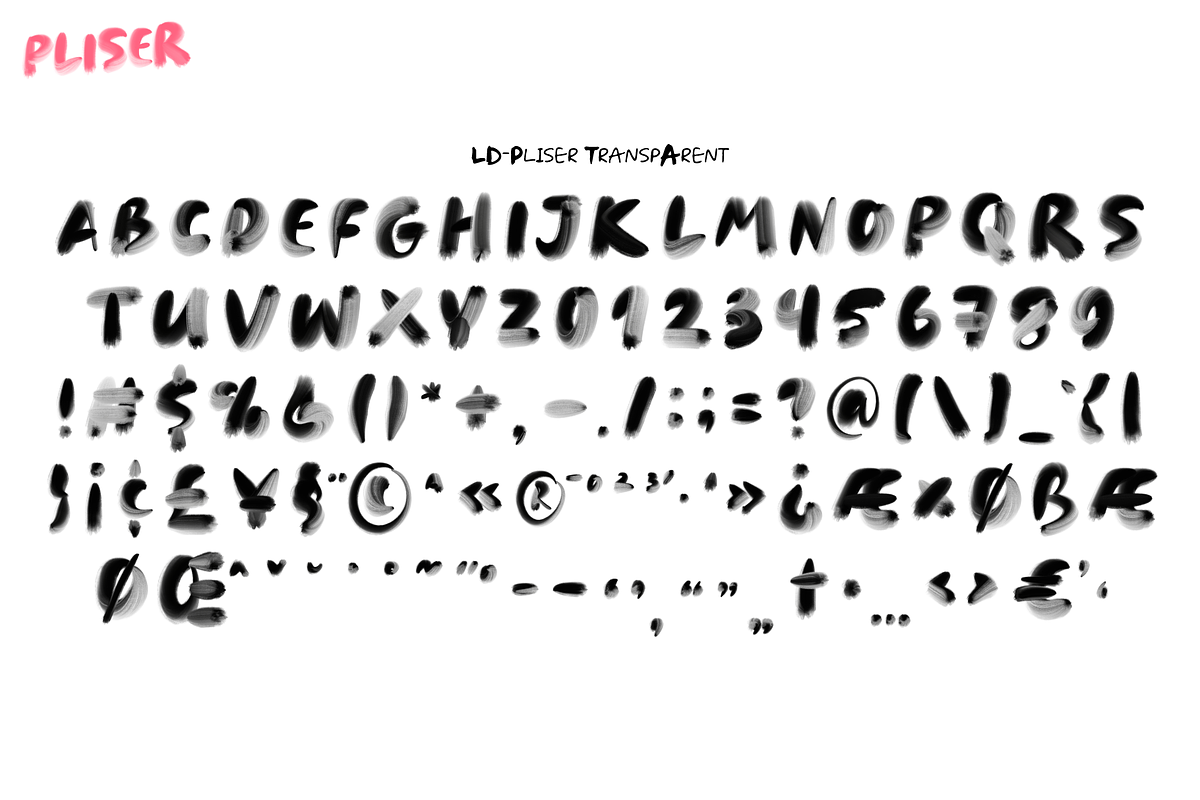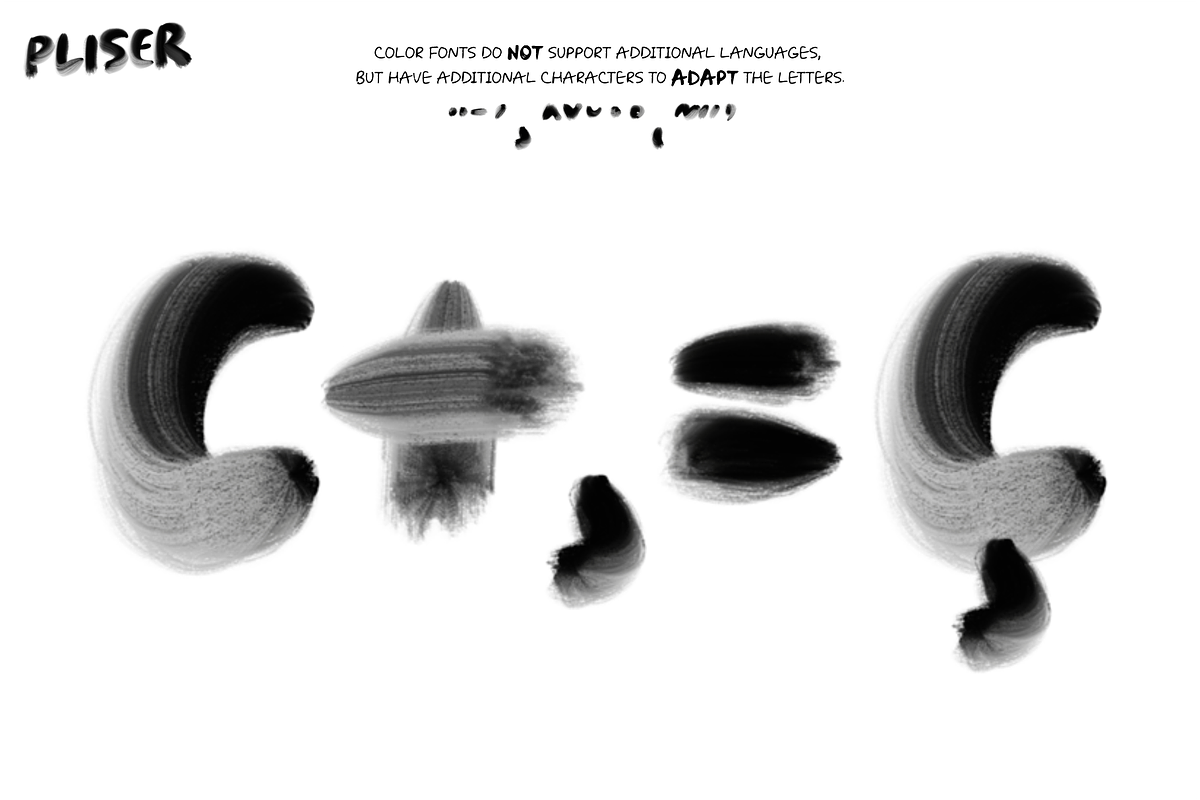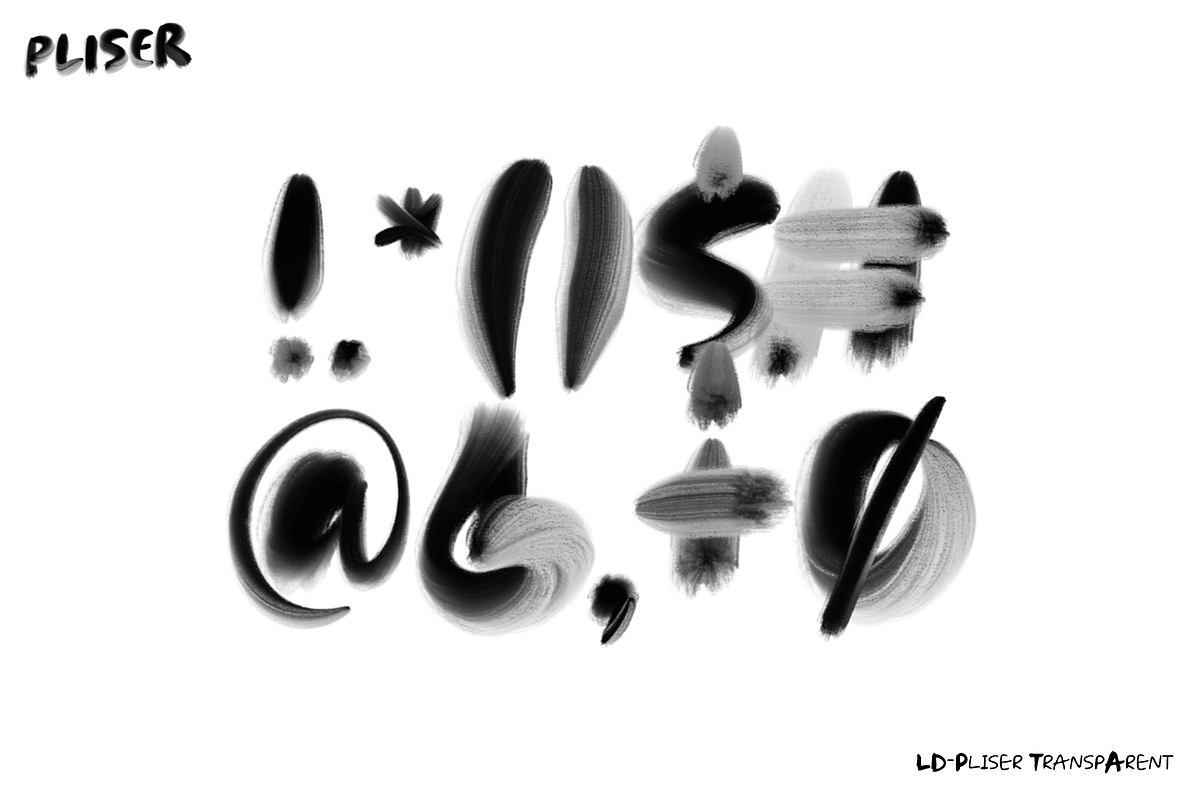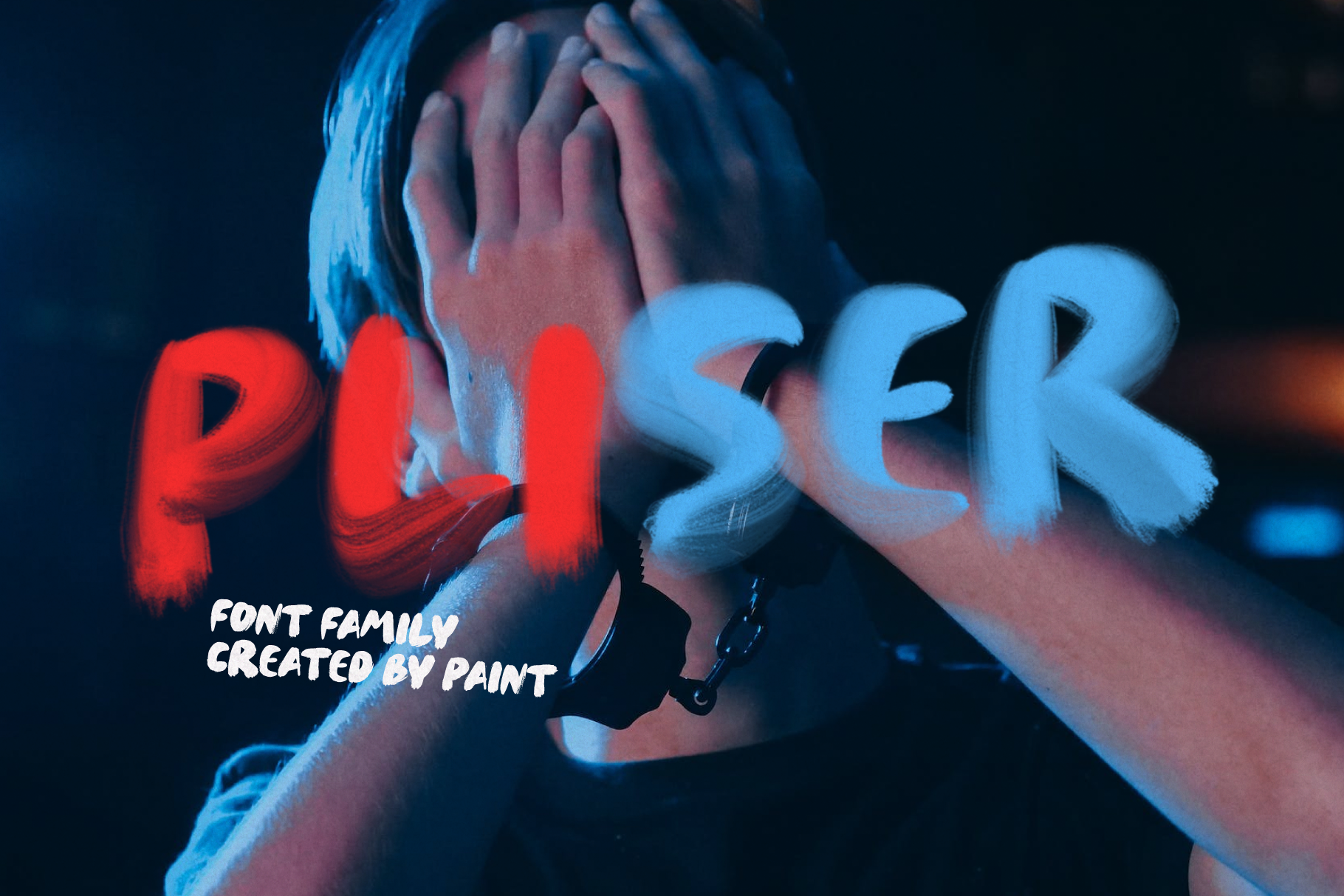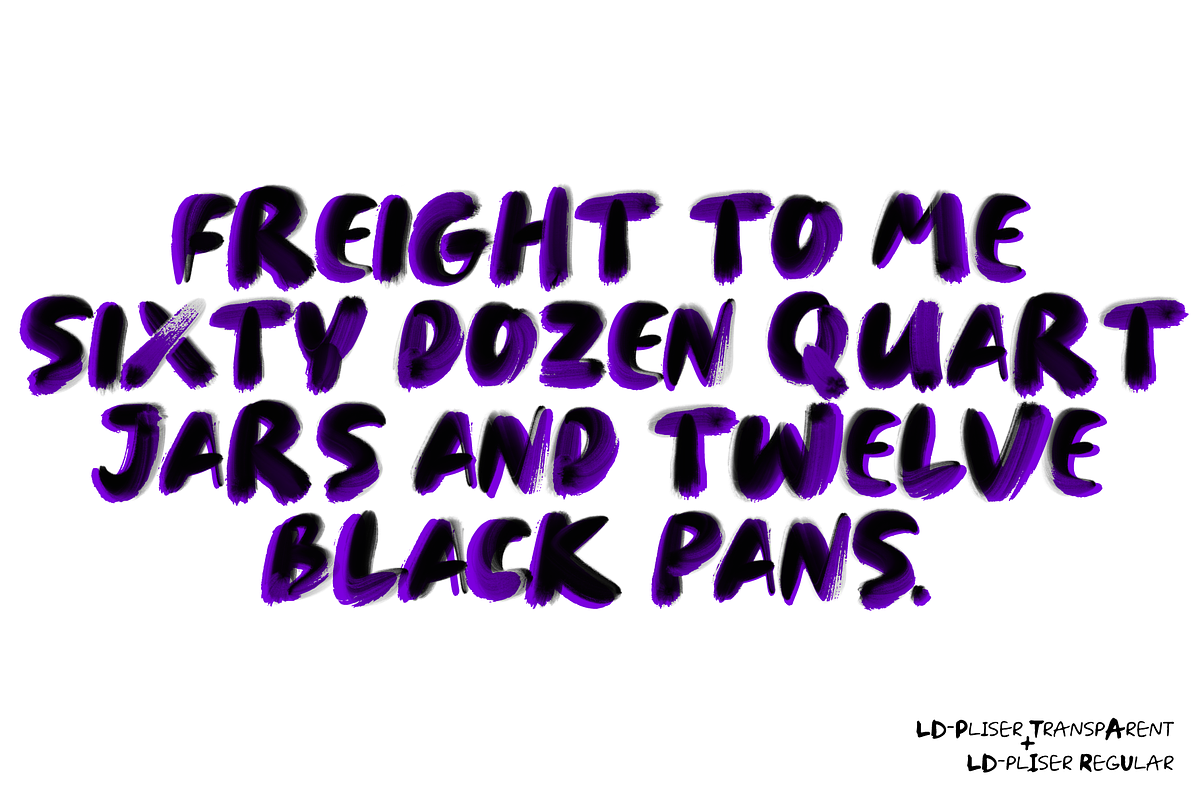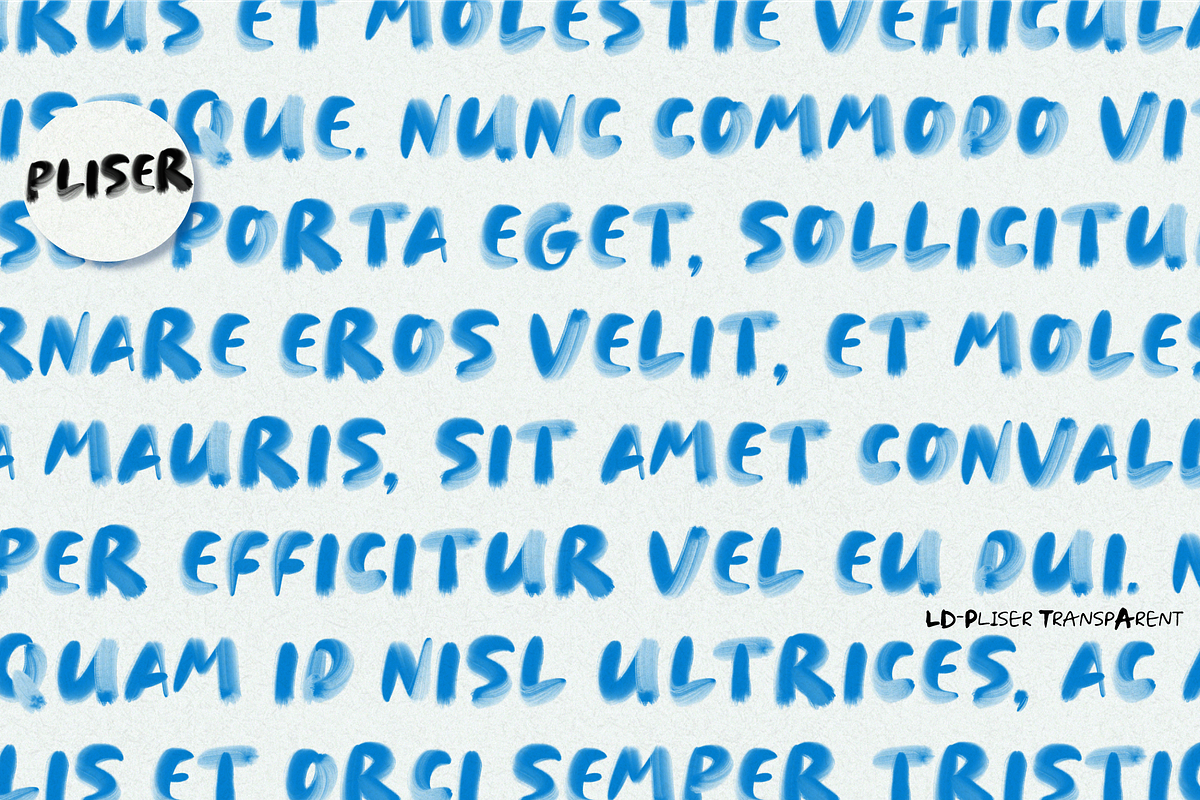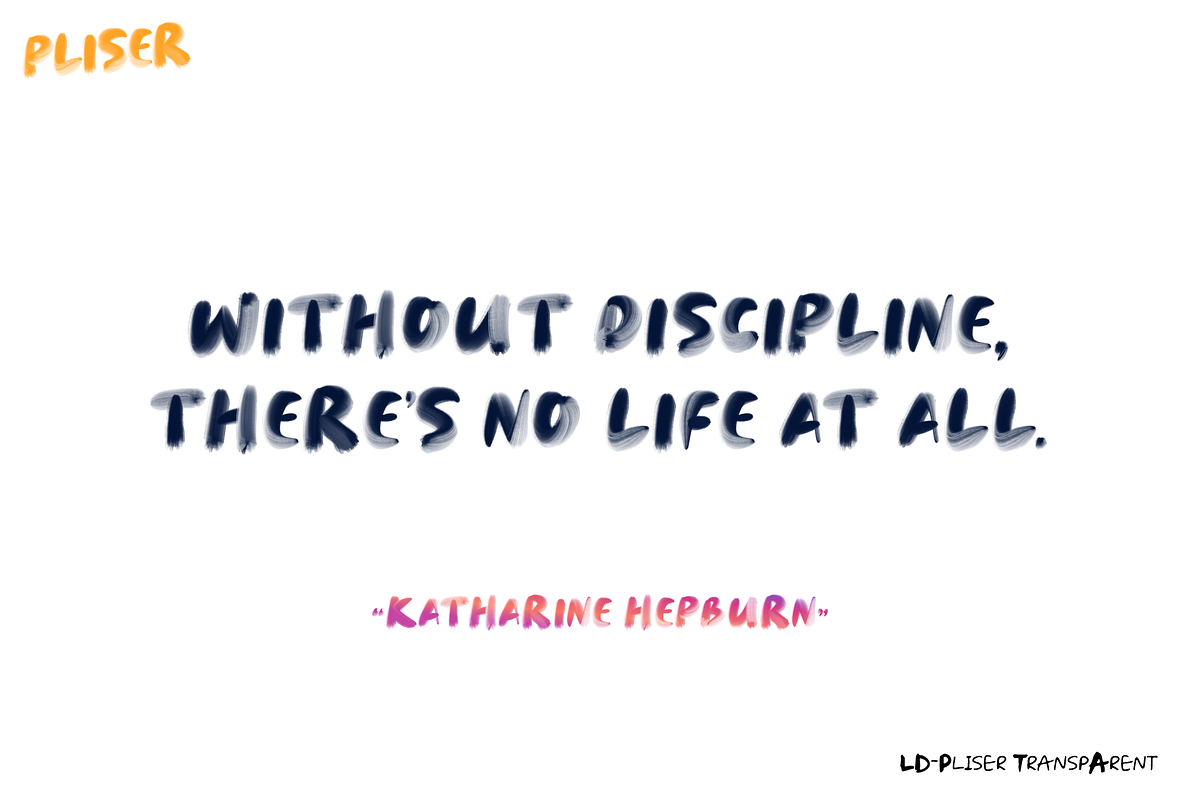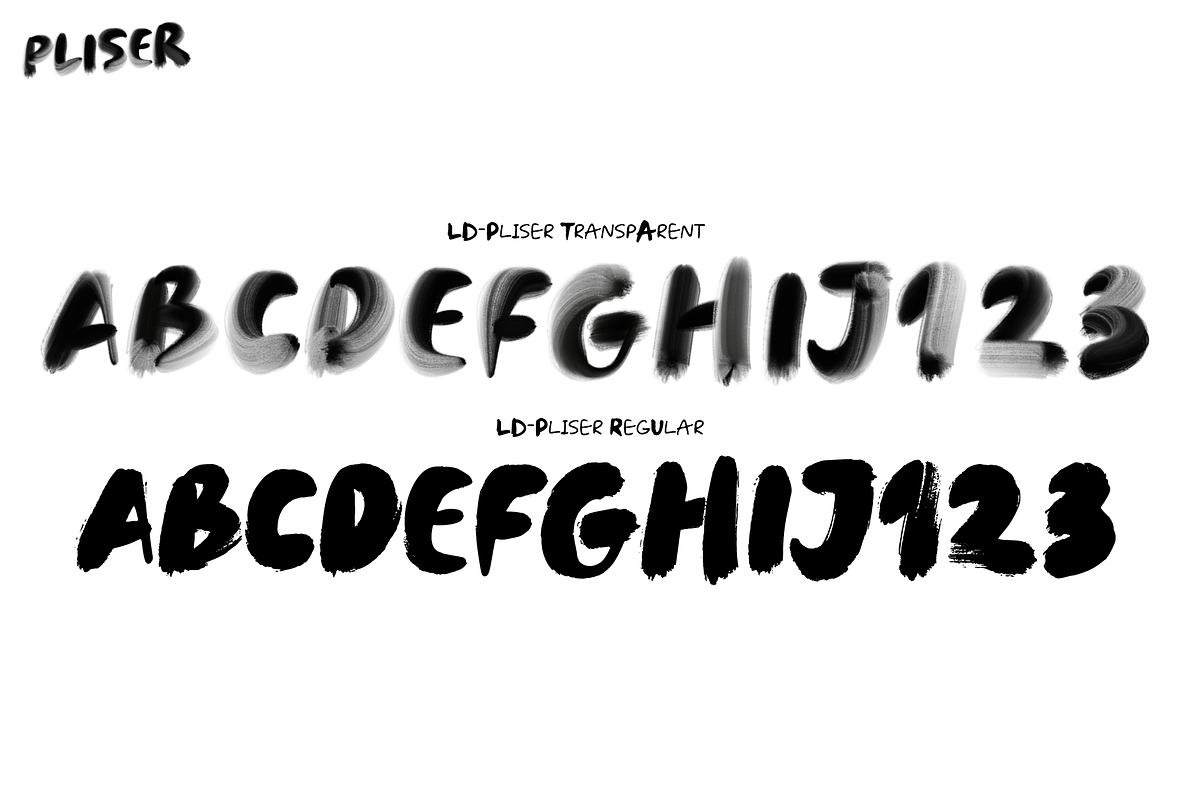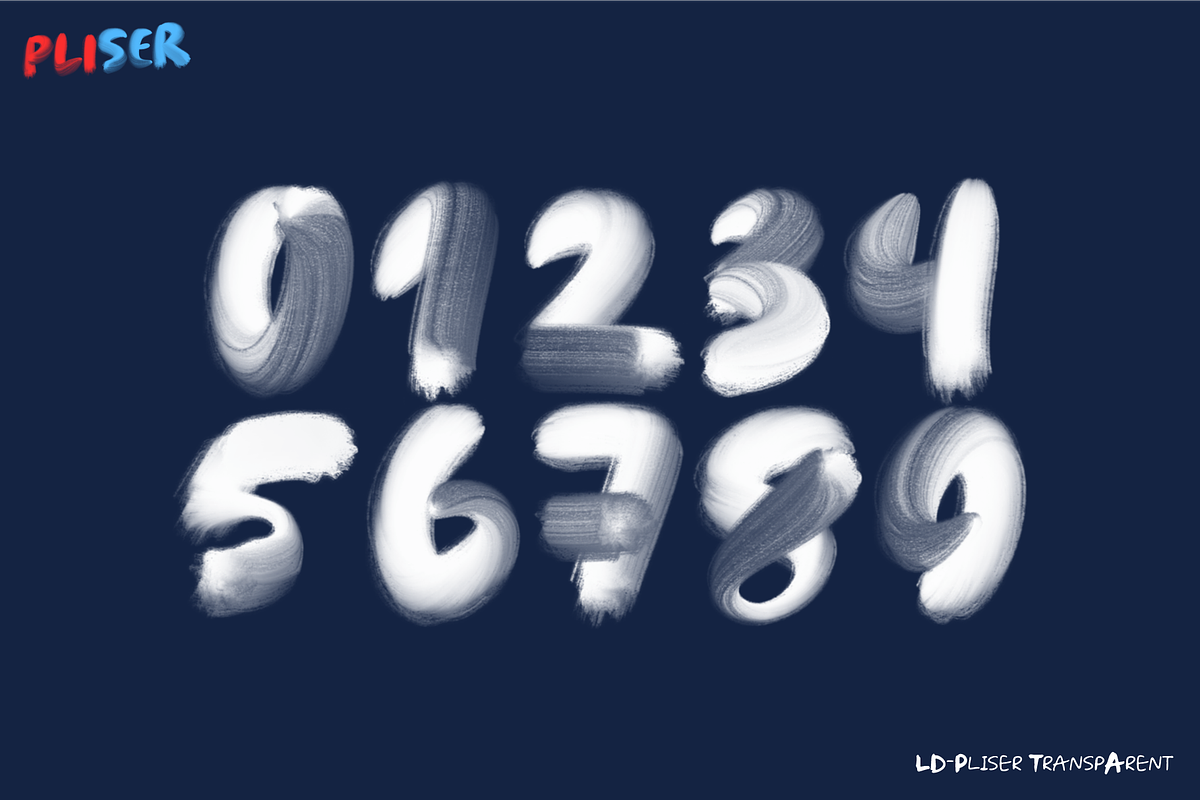
PLISER. OTF Painting font family.
Get inspired by the world of painting with our unique PLISER OTF SVG raster font. This font is a real work of art, where each letter is created from strokes of paint, creating a bewitching color. Each letter is born from strokes of paint, as if you are dipping a brush into a palette. The emotion of each stroke is felt, giving your text an organic and individual touch.
This font is great for creative and expressive projects. It is ideal for posters, advertising, packaging, web design and other visual materials where you want to add a splash of textures.
Show off your artistic eye with PLISER. Each symbol is your little artwork.
- 1 OTF SVG font in the family with Brush strokes raster glyph
- 1 OTF classic system font
- Ability to adapt letters to other languages
- Transparency & Texture
- Kerning
- OTF SVG fonts contain raster letters.